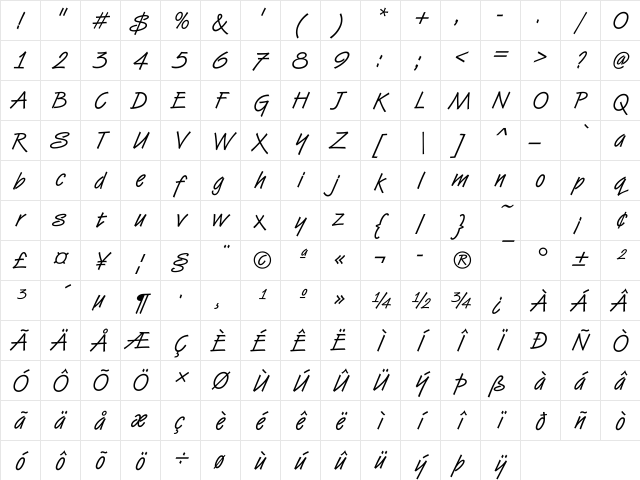
Complete VanDijk00 Becker Regular glyph index. Displaying only characters natively supported by VanDijk00 Becker Regular font.
VanDijk00 Becker is a composed and adaptable typeface that performs quietly and consistently across a wide range of design contexts.